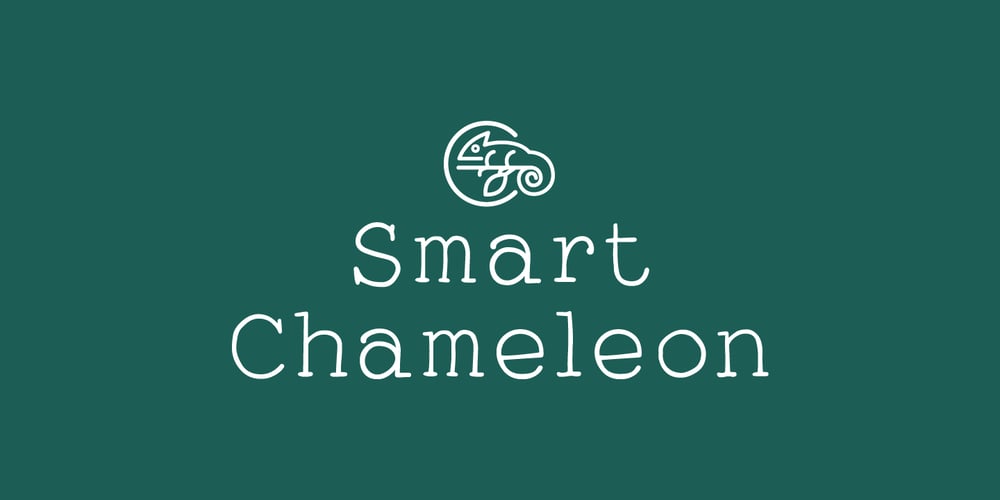
Smart Chameleon Font Family was designed by Muhammad Ridha Agusni, Siti Saribanon Nurjannah and published by Cititype. Smart Chameleon contains 2 styles and family package options. We are pleased to offer a unique typewriter font. Consists of two versions, namely regular and italic, Smart Chameleon has more than 650 glyphs and can be used in more than 150 languages.We present it in a handwritten version with untidy curve that makes you even more exasperated.Smart Chameleon has a vintage style that is packaged in the current version.Suitable for all styles, you only need to replace the color and background of the design and the appearance will totally change, from children’s style to fancy, retro or modern youth style. Just like a chameleon that changes according to the conditions. Enjoy.